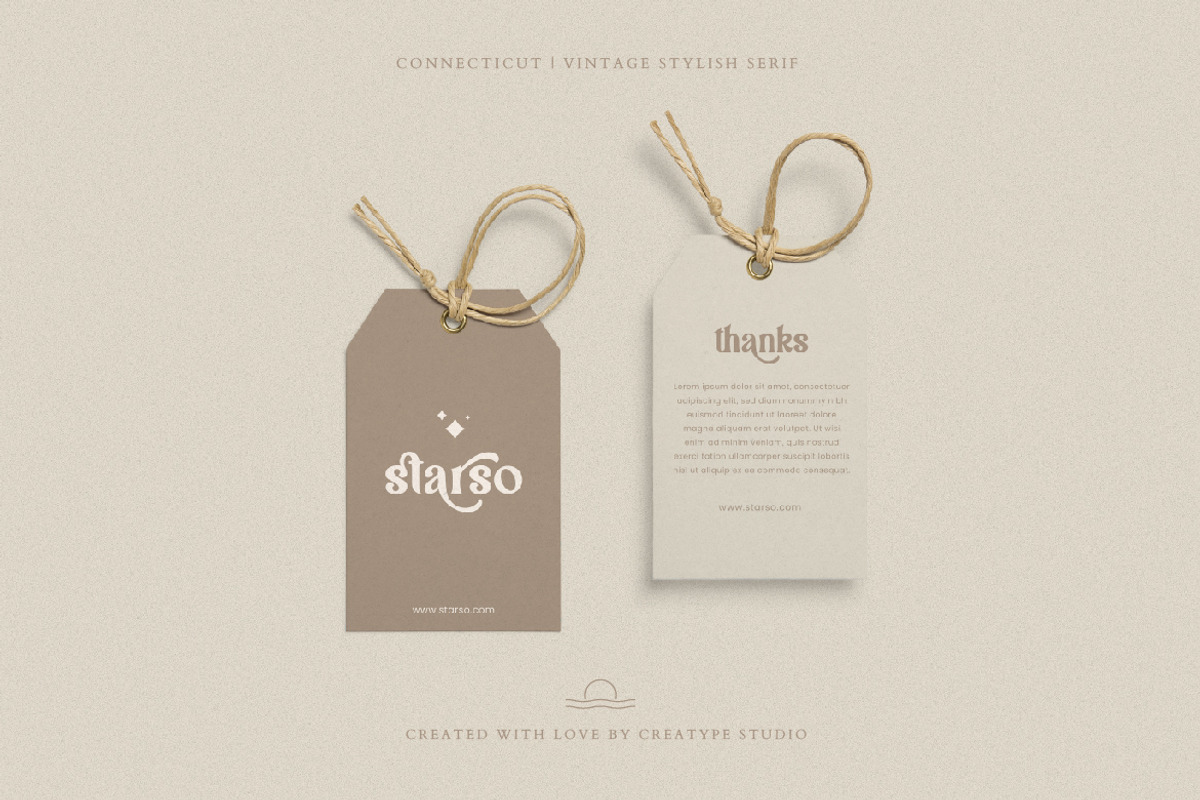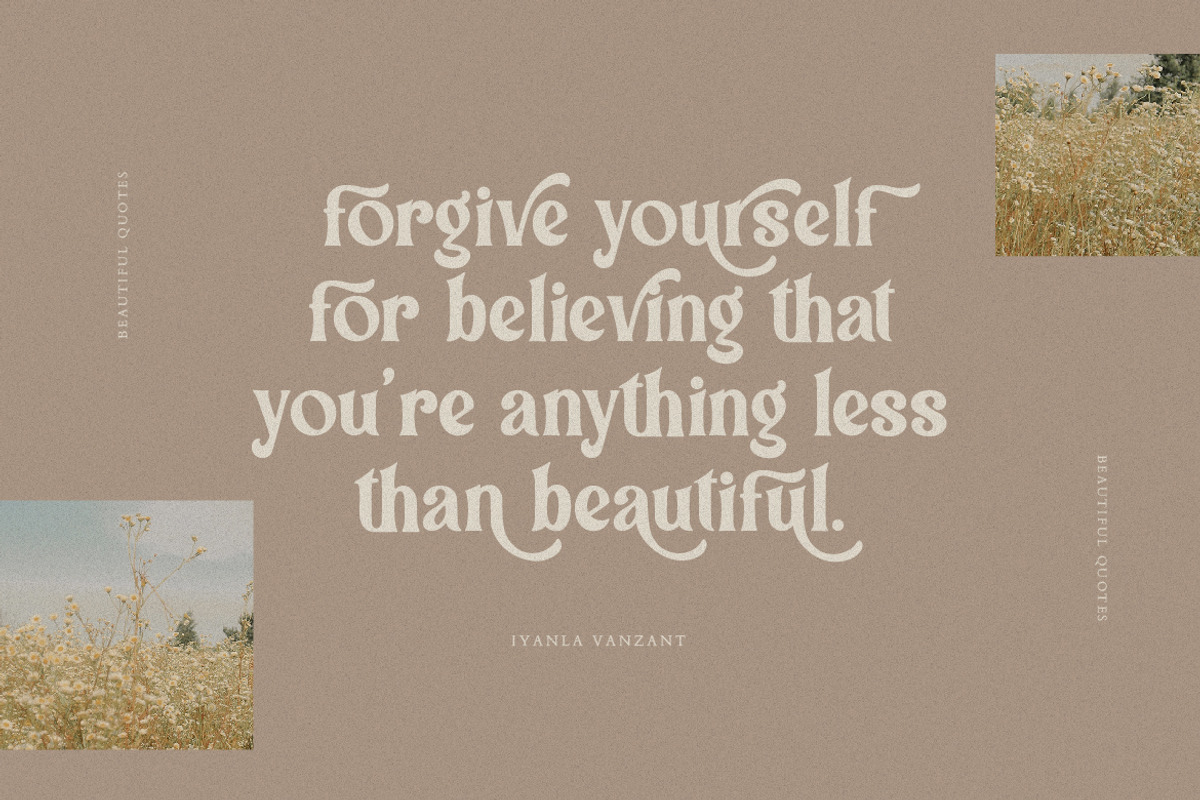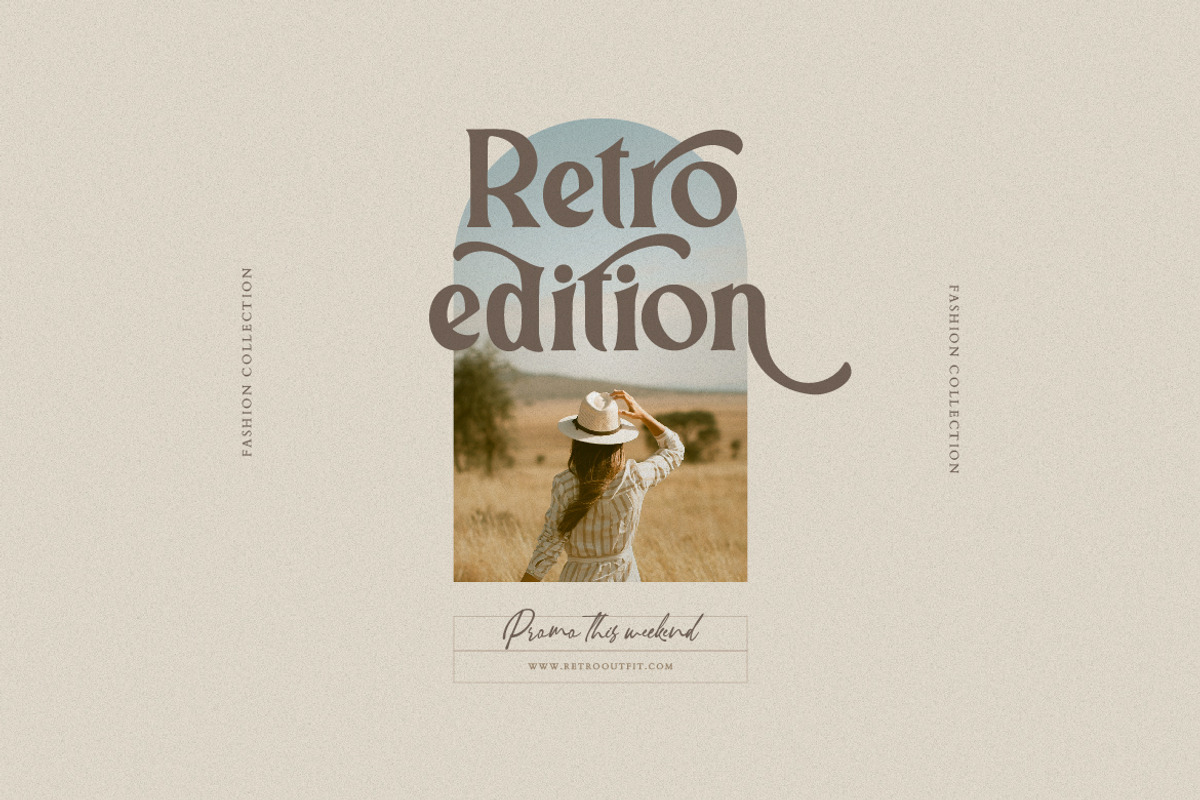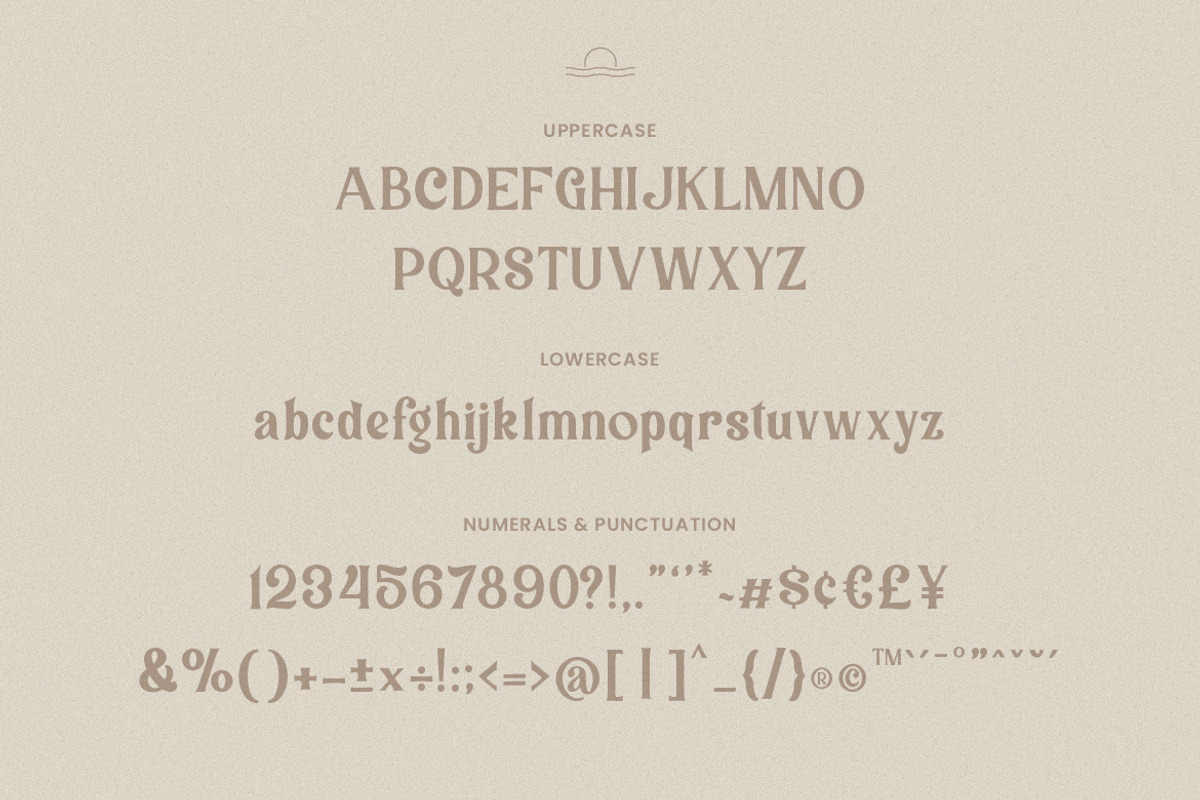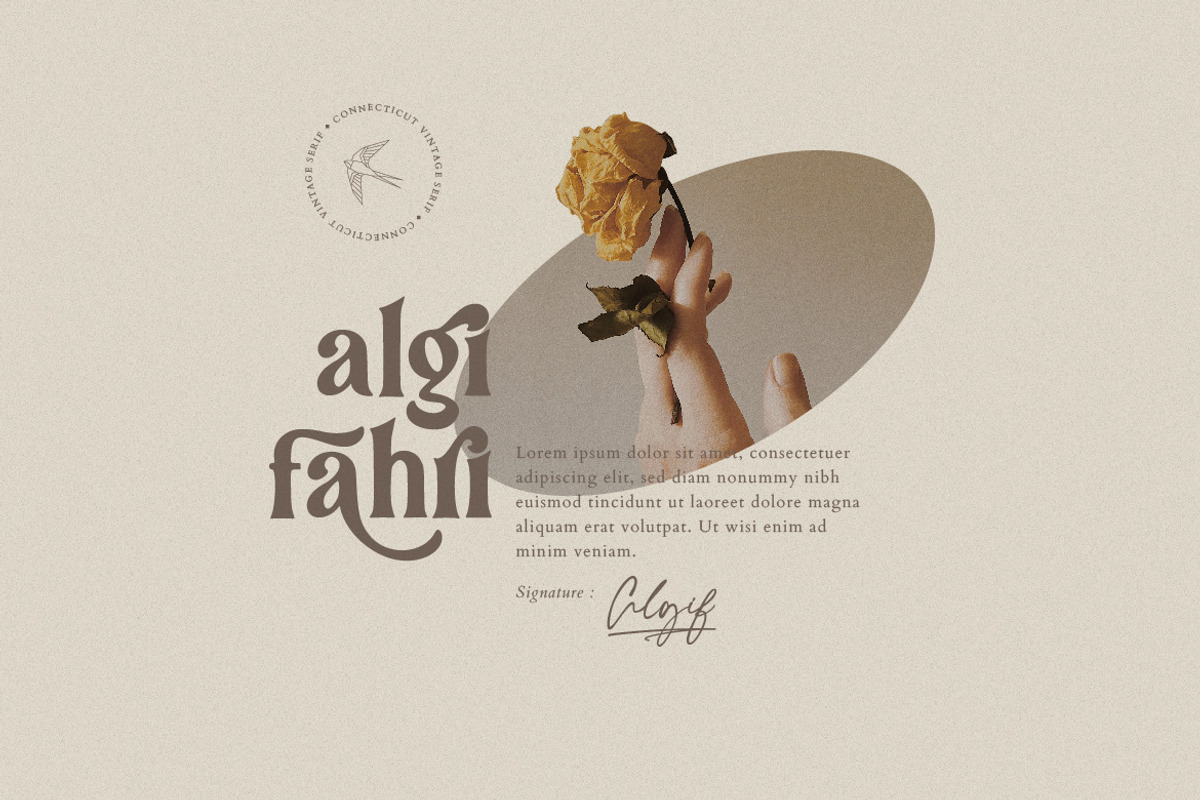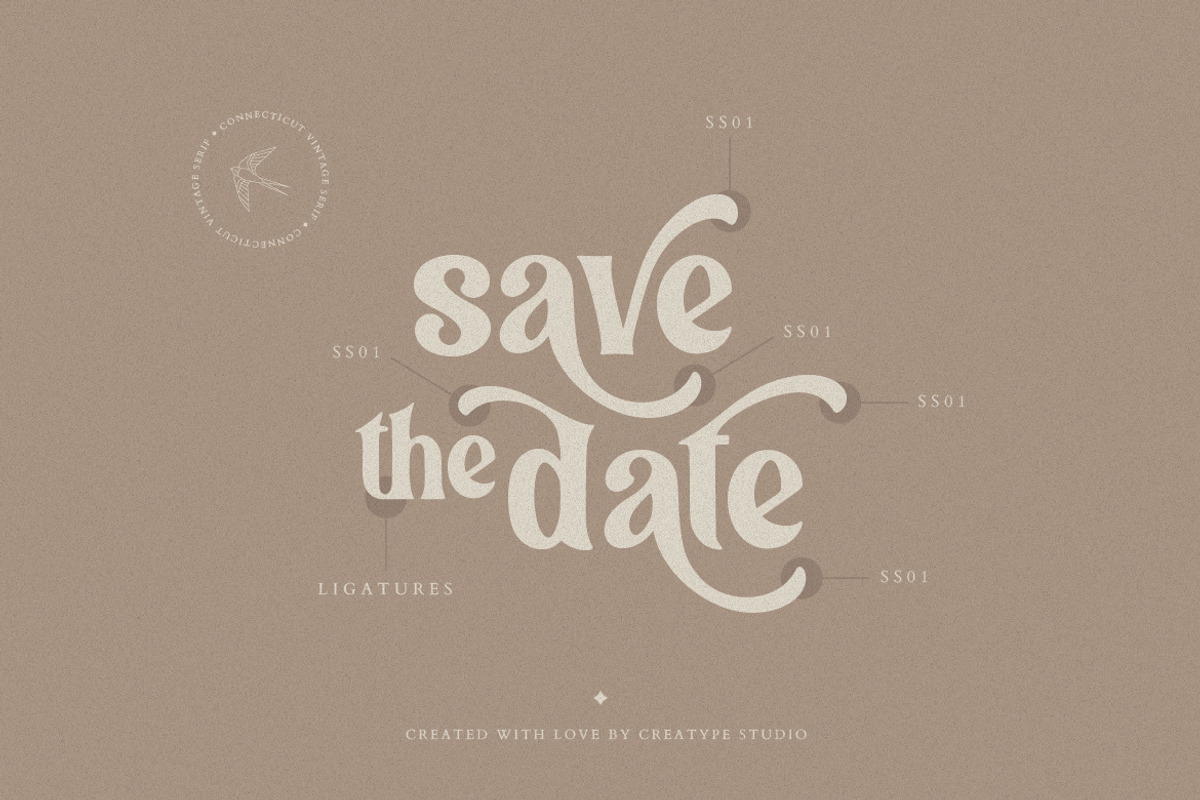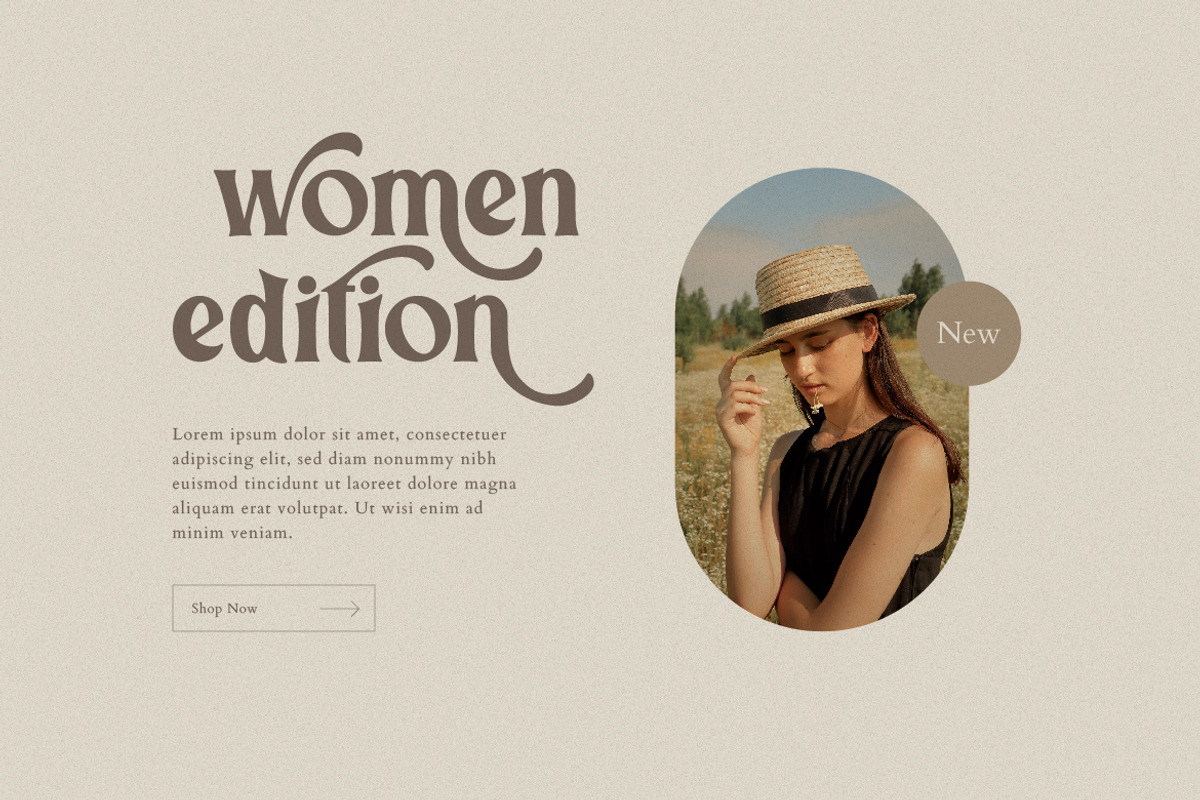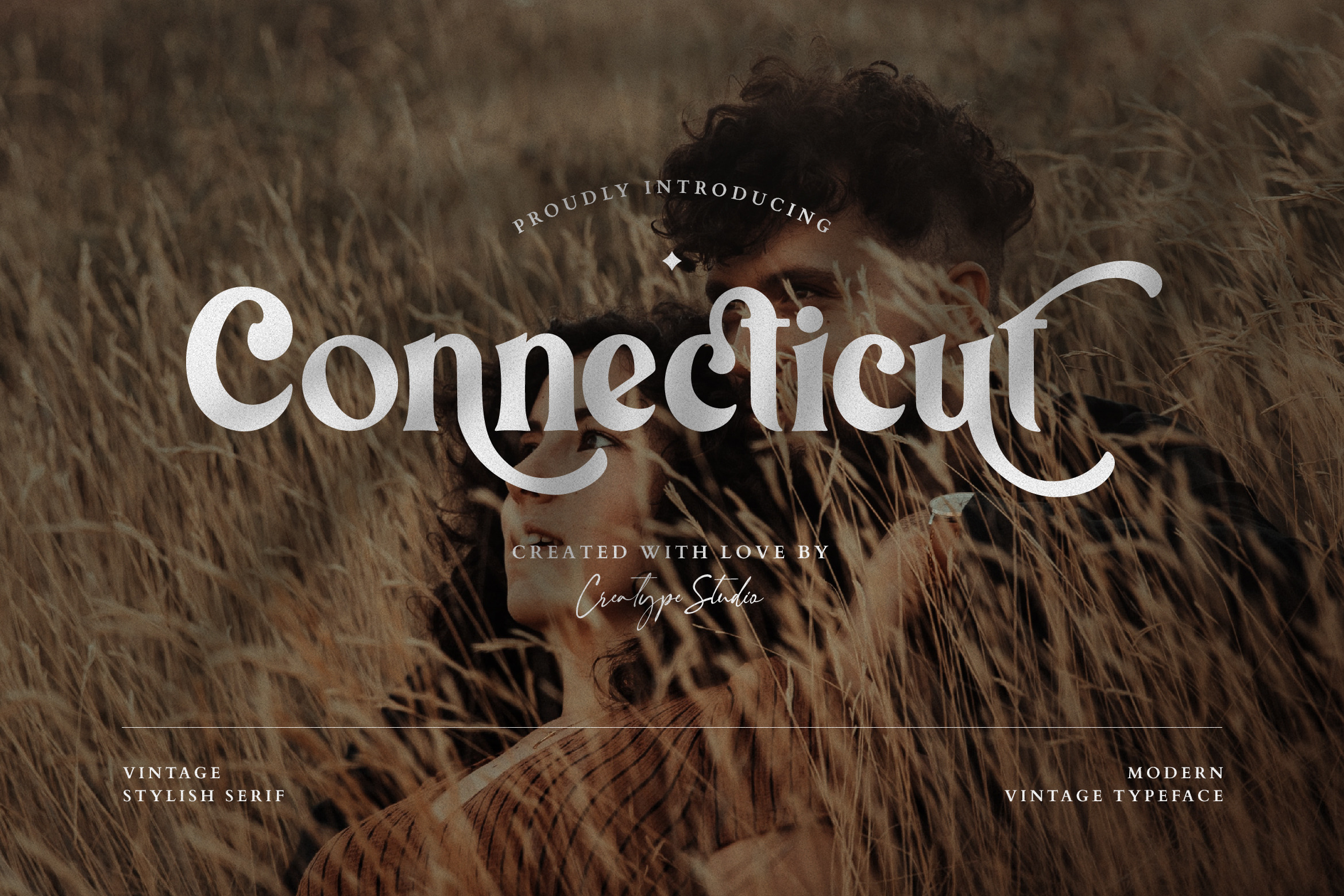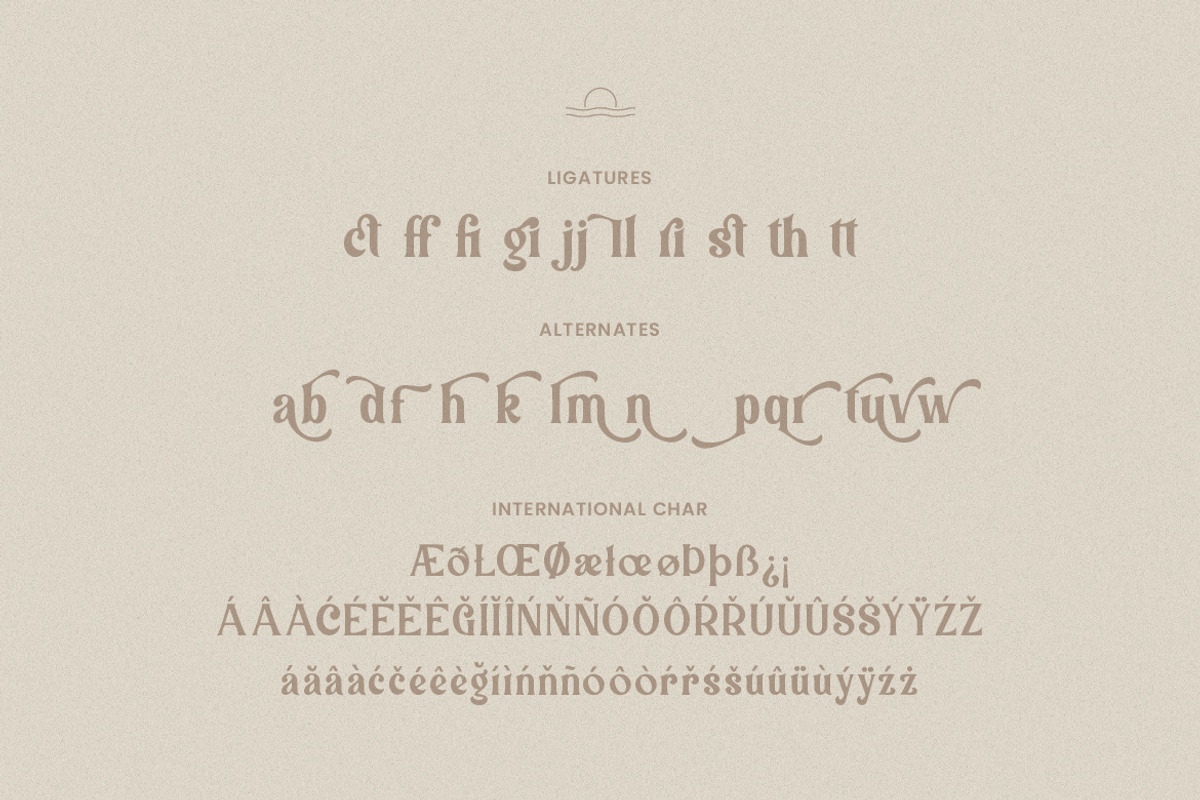
Connecticut Modern Vintage Typeface
Connecticut Vintage Stylish Serif is a modern vintage serif font with a 60s to 70s feel that looks very stylish and very elegant.
Connecticut is perfect for branding projects, logo, wedding designs, social media posts, advertisements, product packaging, product designs, label, photography, watermark, invitation, stationery and any projects that need handwriting taste.
- Ligature & Alternate